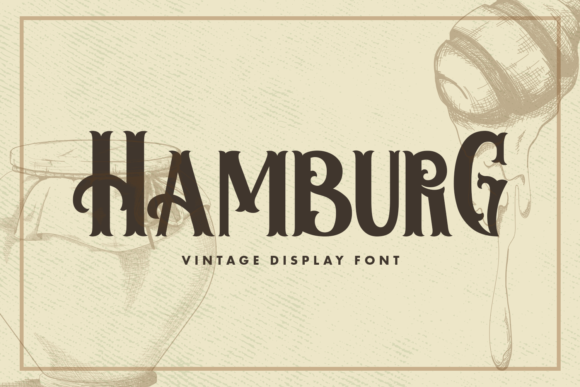
Unleash the Eye-Catching Allure of Hamburg Font: Where Vintage Meets Modernity
In the realm of typography, where letters dance and words take shape, Hamburg Font emerges as a captivating display font, ready to transform your designs into masterpieces. Its bold strokes and vintage charm infuse a sense of nostalgia into every project, making it the ideal choice for those seeking a touch of timeless elegance.
Born from the creative minds at typotopia, Hamburg Font possesses an undeniable versatility that makes it suitable for a diverse range of design endeavors, from formal invitations to playful posters. Its unique character shines through, whether gracing the pages of a magazine, adorning a product label, or captivating audiences in display ads.
With Hamburg Font, let your imagination soar as you explore endless creative possibilities. Create eye-catching headlines that demand attention, design logos that exude sophistication, and craft social media graphics that captivate your audience. Unleash your inner artist and let the vintage charm of Hamburg Font elevate your designs to new heights.
Dive into a world of design possibilities with Hamburg Font, the ultimate display font that fuses the best of the past with the brilliance of the present. Embrace its bold personality and witness the transformation of your projects into timeless works of art.